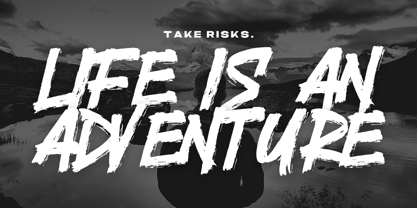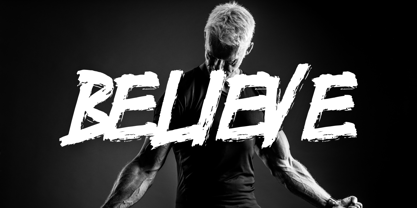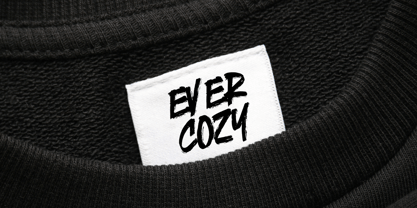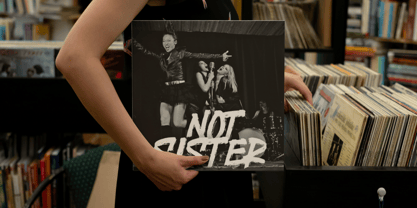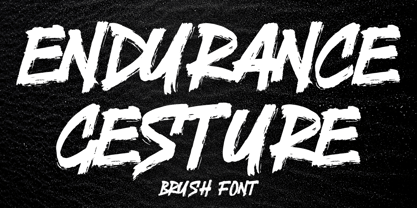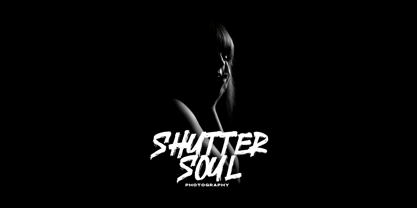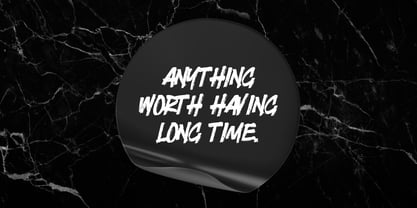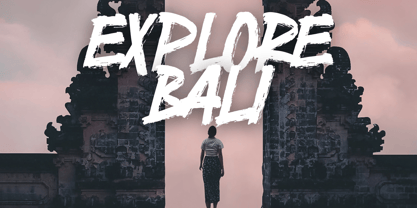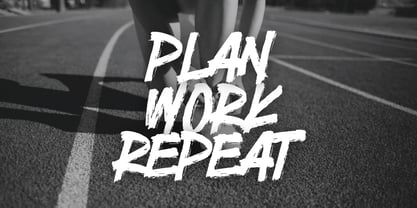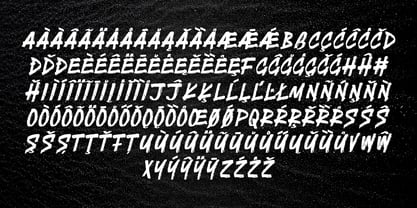
Endurance Gesture
Endurance Gesture is a bold and energetic all-caps brush display font, designed to bring dynamic and expressive visuals to your creative projects. With its authentic brush strokes and hand-crafted feel, this font is perfect for making a statement in any design.
Key Features:
• All-Caps Style: Strong uppercase characters for impactful designs.
• Extensive Multilingual Support: Covers a wide range of global languages.
• Handmade Appeal: Authentic brush texture for a natural and expressive look.
• Versatile Usage: Ideal for logos, posters, packaging, merchandise, and more.
Perfect For:
• Bold branding and identity projects.
• Dynamic posters and event flyers.
• Eye-catching product packaging.
• Merchandise and apparel designs.
With Endurance Gesture, add boldness and creativity to your projects and captivate your audience with every design.